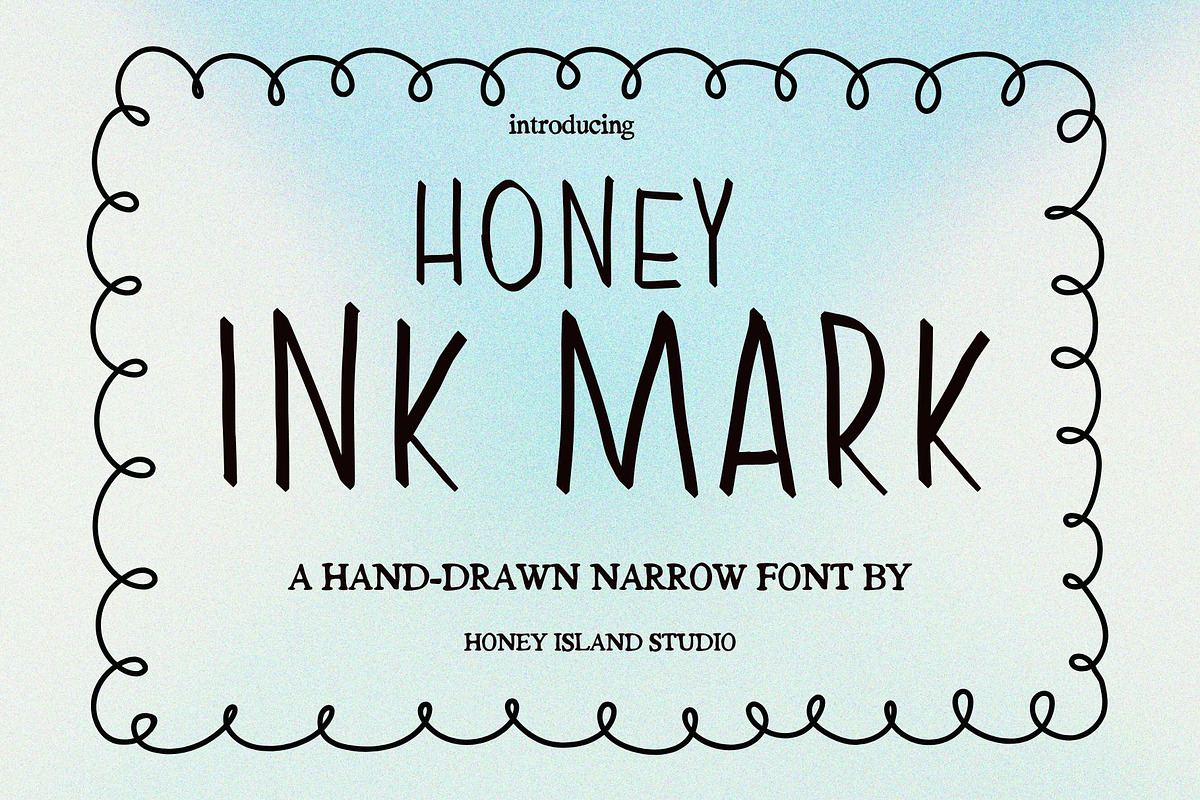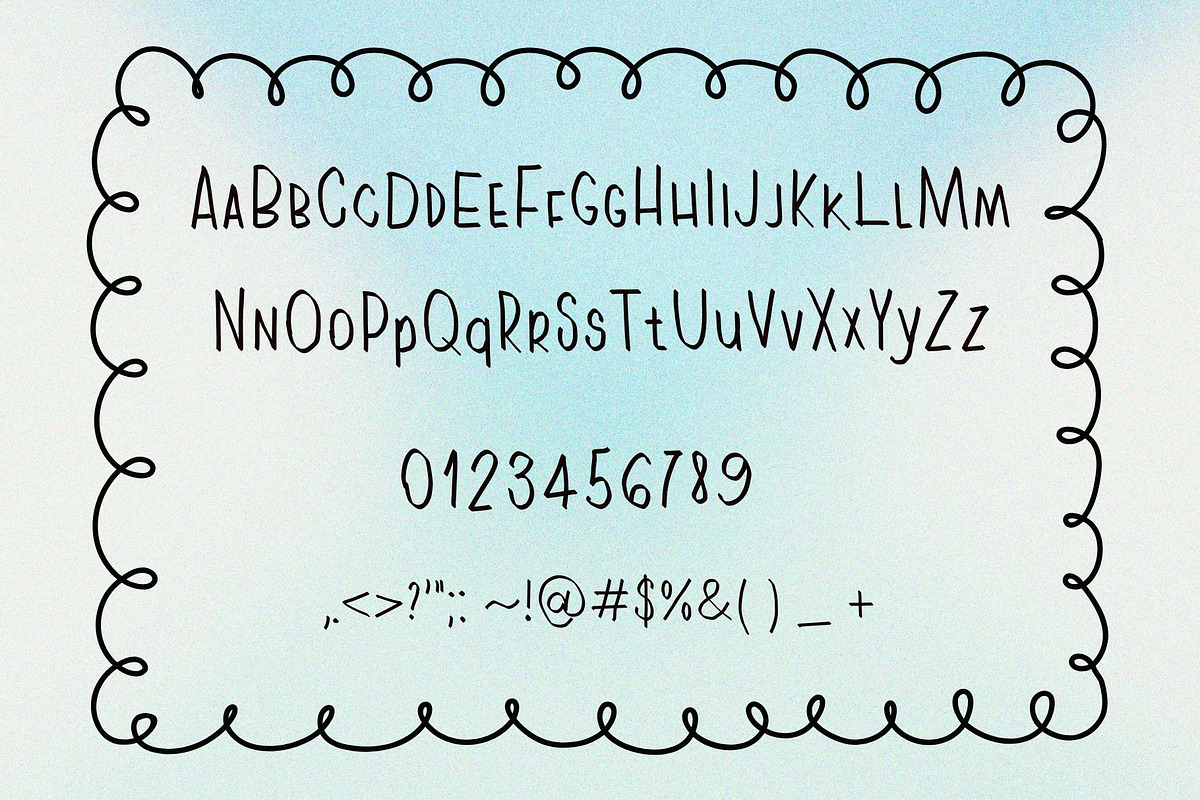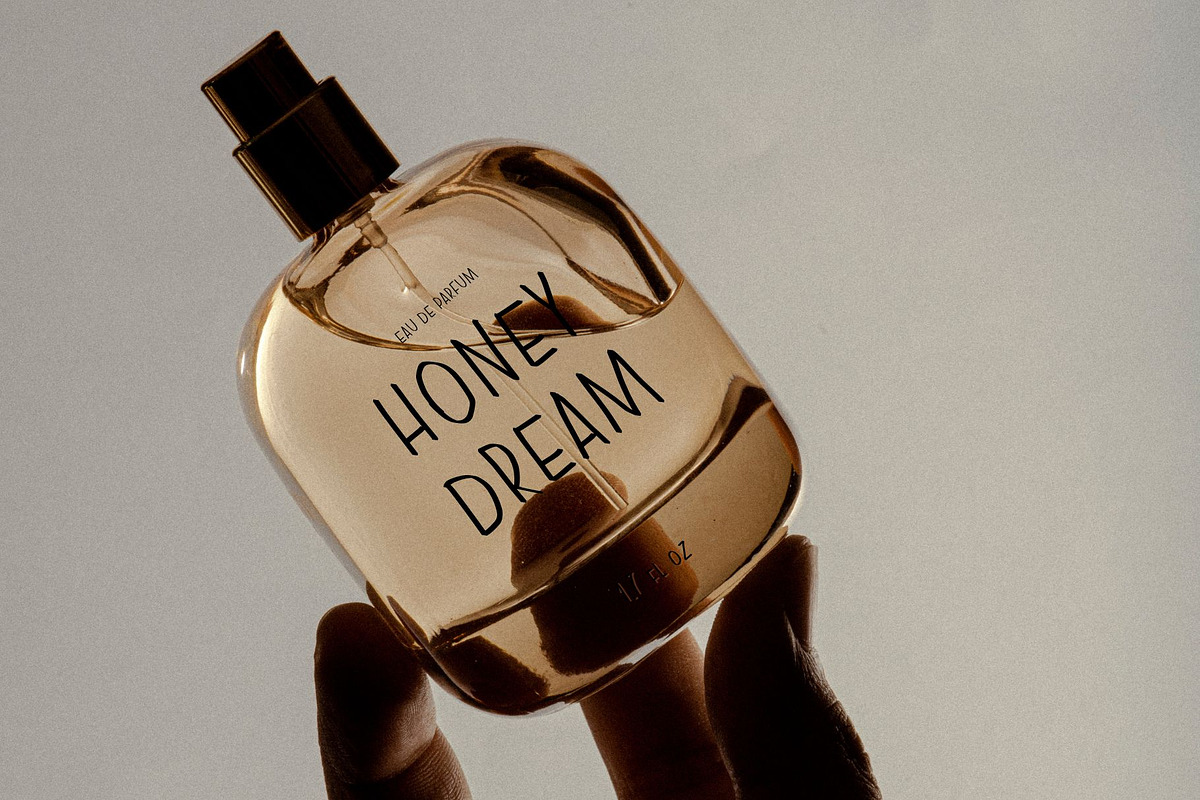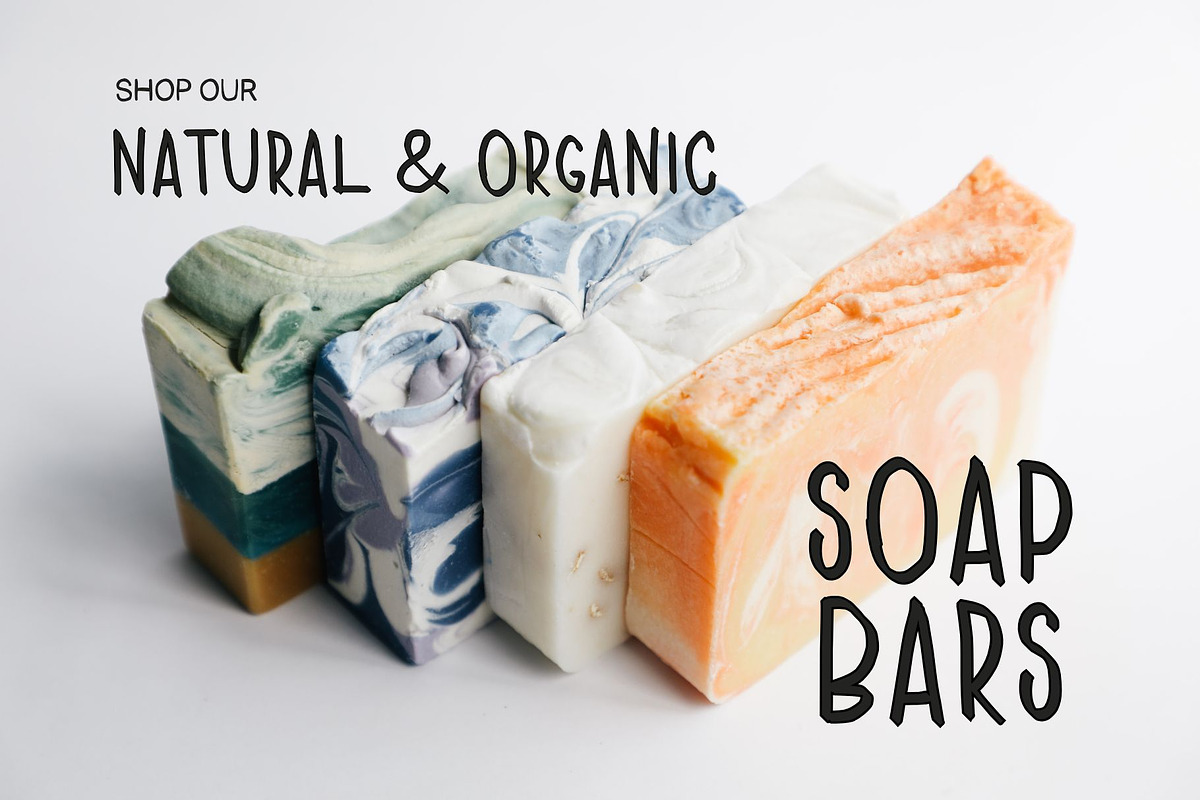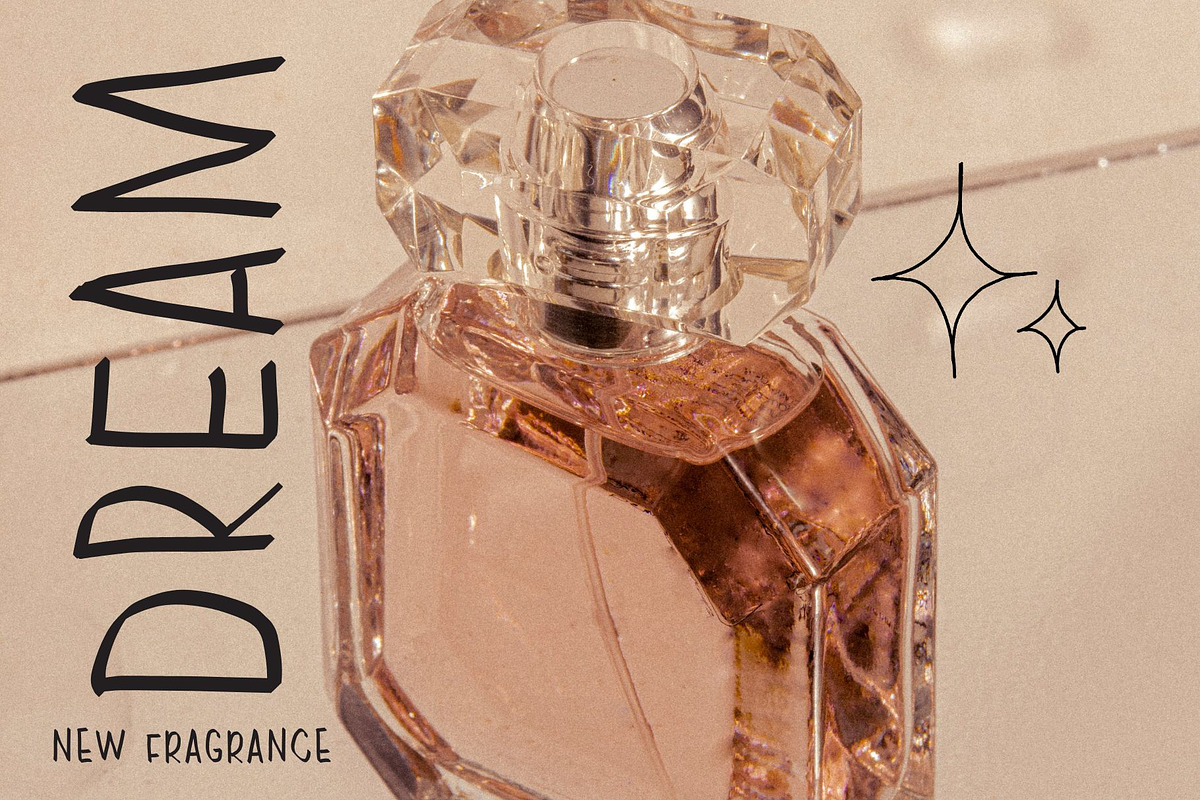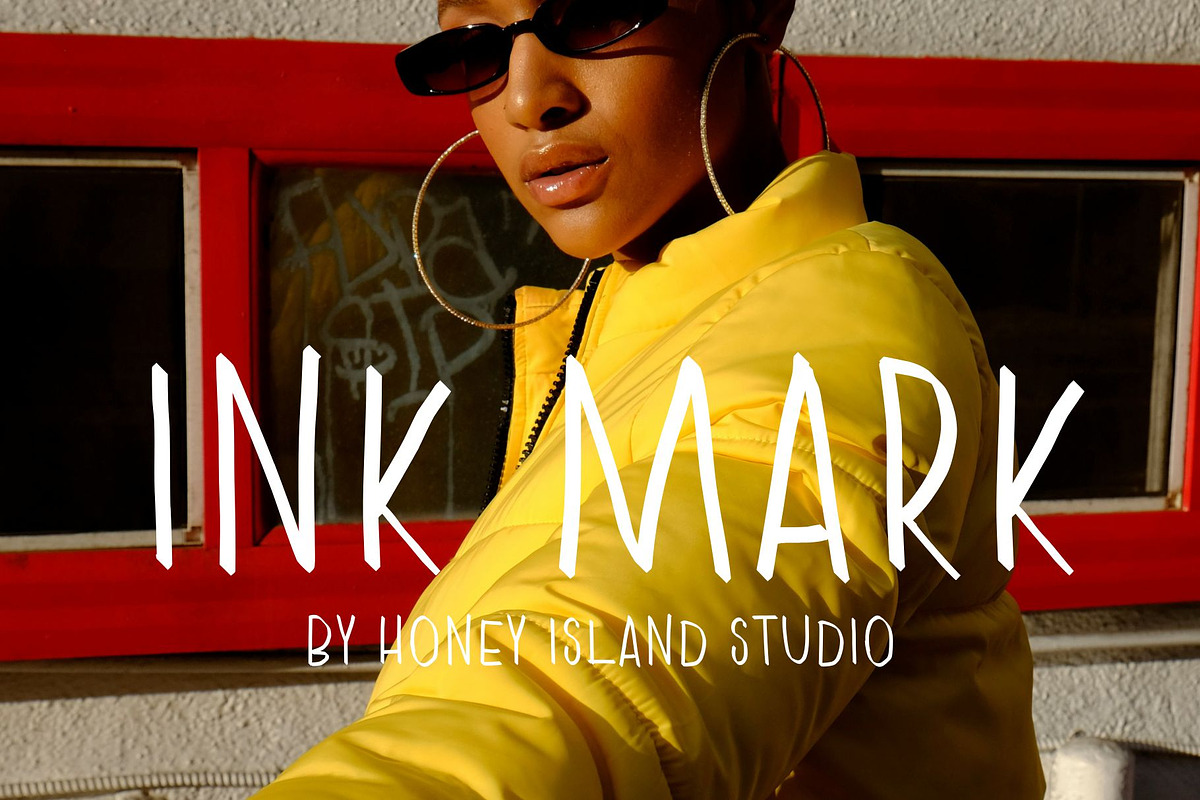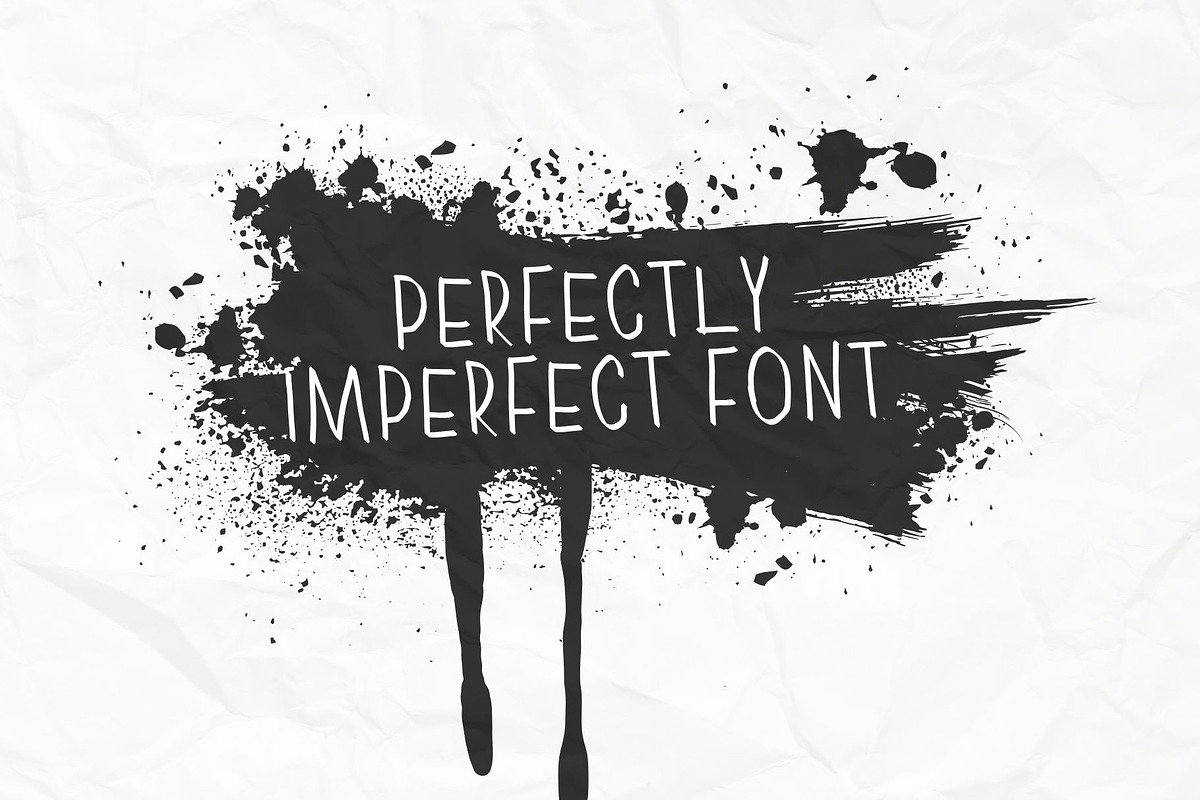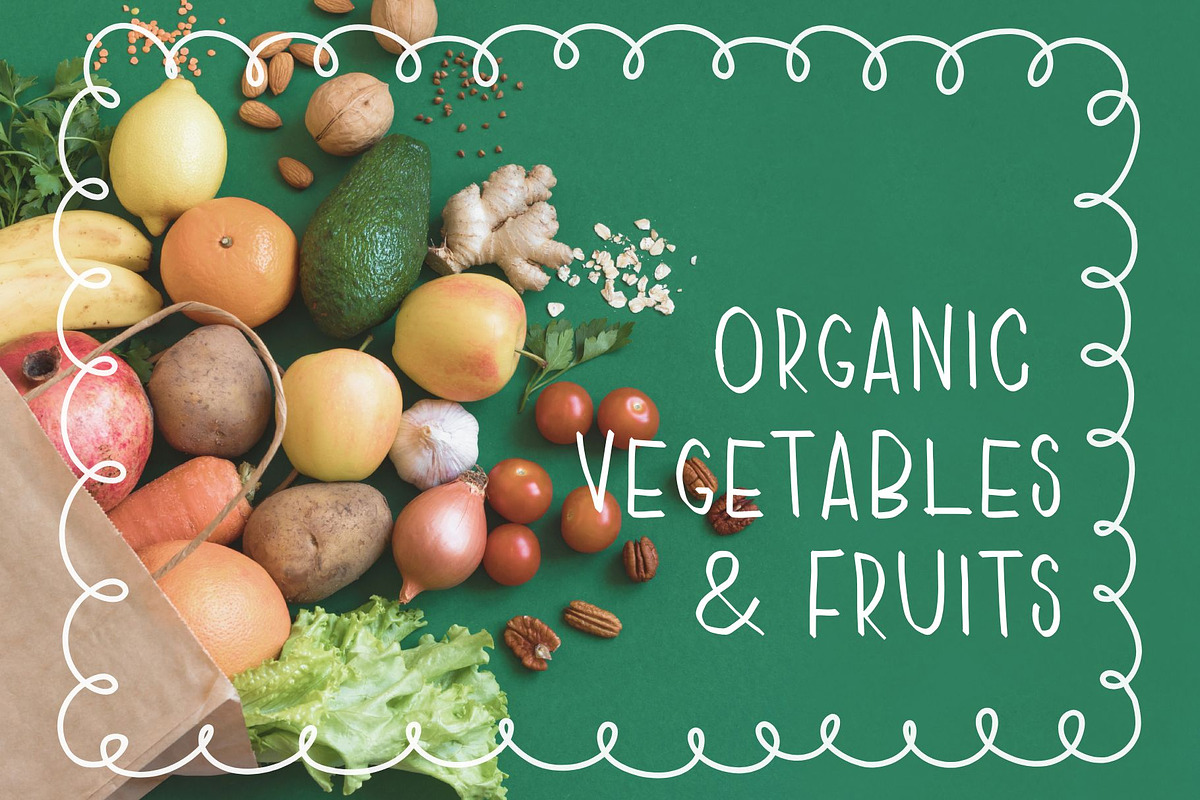
Hand Drawn Narrow Sans Serif InkMark
INKMARK Hand-Drawn Narrow Sans Serif Font by Honey Island Studio
INKMARK is a hand-drawn narrow sans serif font with clean, minimal lines and a raw, organic feel. Inspired by the natural flow of a fine marker tip, this font brings simplicity and character together in one effortlessly modern package. Its slim, upright form makes it perfect for everything from logos and branding to packaging, social graphics, and more.
Whether you're designing with intention or just adding a subtle handmade touch, INKMARK keeps your typography looking stylish, legible, and creatively authentic.